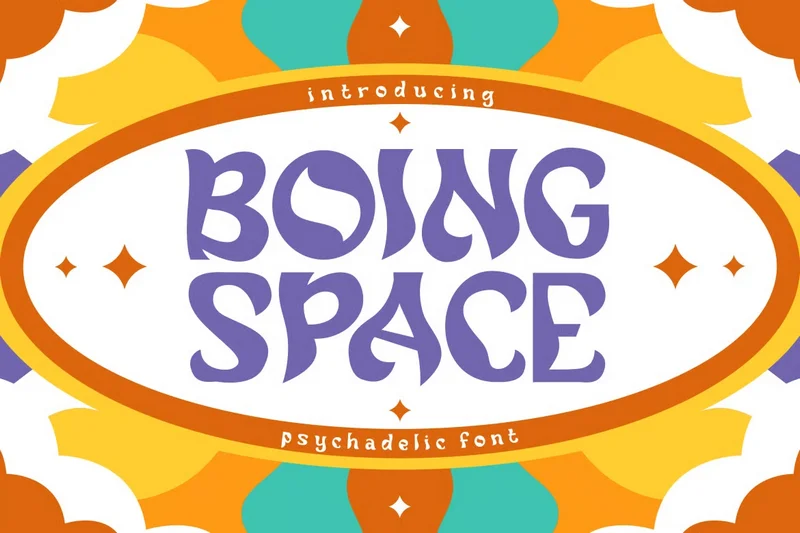
Boing Space Psychedelic Font
Boing Space is a vibrant psychedelic display font inspired by the bold, wavy letterforms of the 60s and 70s. Its thick curves and fluid shapes create a sense of motion, perfect for designs that need an energetic and eye-catching look. The font’s unique character set blends vintage aesthetics with a modern twist, making it a great choice for retro branding, posters, or any design project that celebrates bold creativity. Each letter has a playful rhythm, giving your text a free-spirited and artistic vibe.
This font works beautifully for logos, packaging, music-themed posters, invitations, stickers, and book covers. It’s also ideal for merchandise, magazine headlines, or event branding with a nostalgic yet trendy style. The groovy curves ensure excellent readability while keeping a decorative, artistic flair. Whether you’re creating a retro festival flyer or a bold modern artwork, Boing Space delivers personality and visual impact with every word.